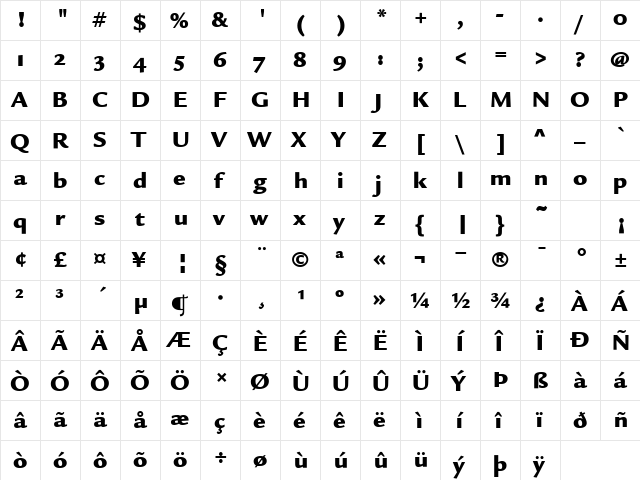
LegacySansITCOS-Ultra Ultra
Design Context for LegacySansITCOS-Ultra Typeface
LegacySansITCOS-Ultra takes a measured approach to typography — its balanced proportions and neutral character make it a reliable workhorse for both digital and print work.